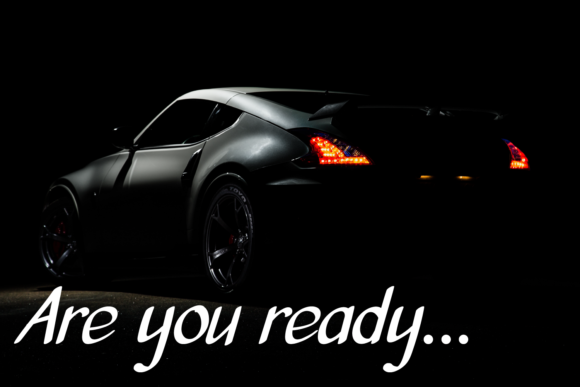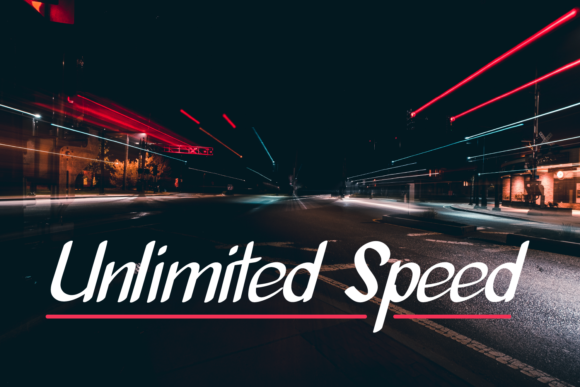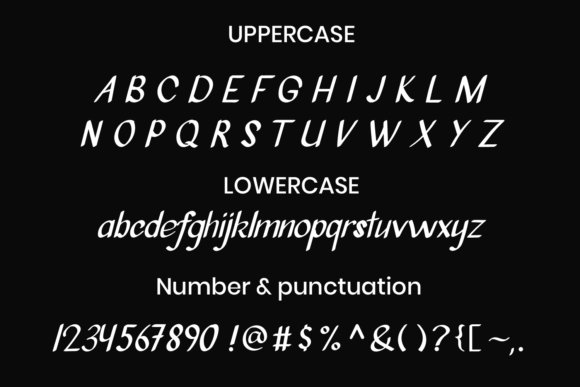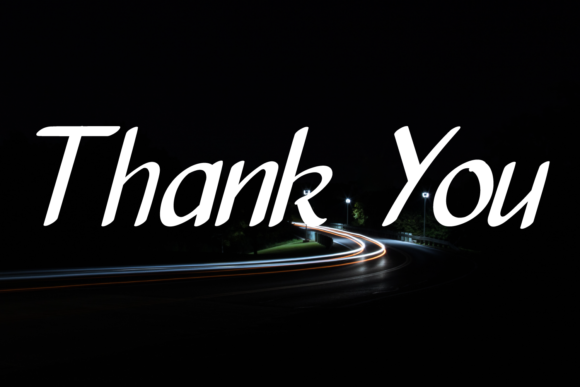
Introduction to Minimum Jump Font
As a designer, you’ve likely experienced that magical moment when a font brings your creative project to life. It’s the perfect storm of style, functionality, and emotion that elevates your design from good to great. For me, that moment came when I stumbled upon the Minimum Jump Font – a sweet and friendly handwritten font that adds a touch of warmth to any design.
With its relaxed style, Minimum Jump Font is the perfect design resource for designers looking to add a personal touch to their projects. Whether you’re working on a logo, social media graphics, or a website, this high-quality font is sure to make your designs stand out. And the best part? It’s available for free download, complete with a transparent background, making it easy to integrate into your designs.
Key Features of Minimum Jump Font
- High-quality design with a clean and modern aesthetic, making it perfect for creative projects.
- Available in 6 font styles: Regular, Italic, Bold, Bold Italic, Outline, and Shadow, providing versatility for designers.
- Part of a larger font family, allowing designers to mix and match styles for a cohesive look.
Honest Review: Minimum Jump Font
I recently stumbled upon the Minimum Jump Font and was excited to give it a try for my creative project. As a designer, I’m always on the lookout for high-quality design resources that can elevate my work. The Minimum Jump Font did not disappoint.
- What works well: ✨ The font is incredibly versatile and works well for a variety of design projects, from digital to print. The transparent background makes it easy to overlay on top of images or other design elements.
- What works well: ✨ The design of the font is clean and modern, making it a great addition to any design project.
However, I do have a few limitations to note: ⚠️ The font may not be suitable for all types of projects, particularly those that require a more formal or traditional look. Additionally, the font is not available in as many languages as some other fonts on the market.
Overall, I’m really impressed with the Minimum Jump Font. It’s a great addition to my design resource library and I’m excited to use it on future projects.
Tips for Getting the Most Out of Minimum Jump Font
For a transparent background, use the font on a transparent PNG image. To get the most out of the font, experiment with different font sizes, styles, and colors. You can also use the font in combination with other design resources to create a unique and eye-catching design.
Minimum Jump Font is a versatile design resource that can be used in various creative projects, such as logos, business cards, social media graphics, and presentations. Its high-quality design and transparent background make it an ideal choice for designers who want to create visually appealing and professional-looking designs.